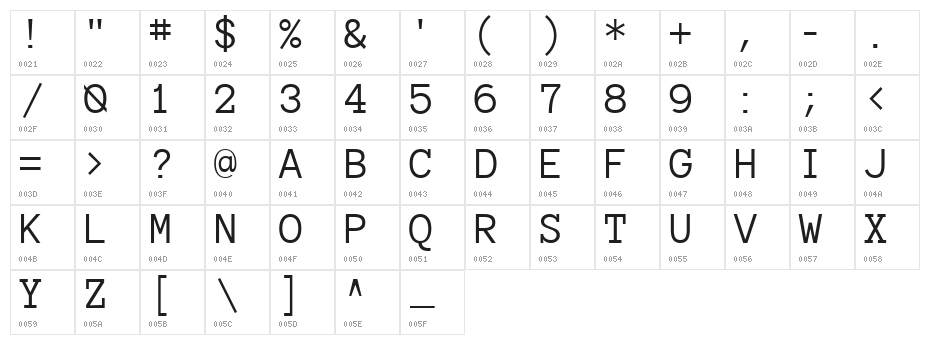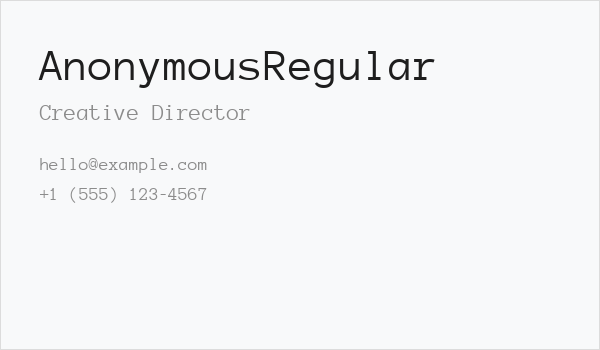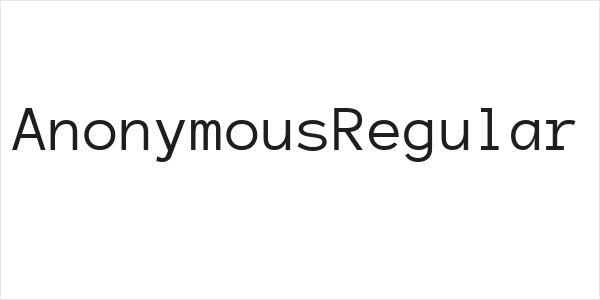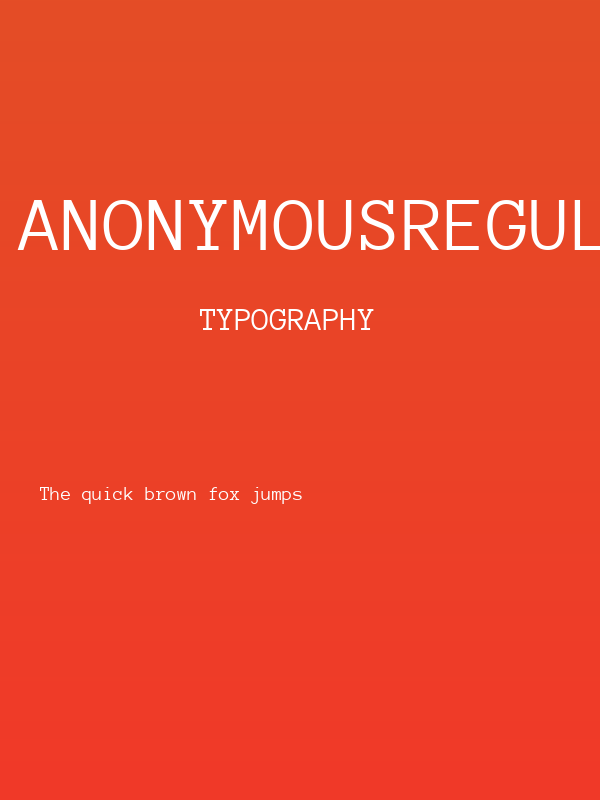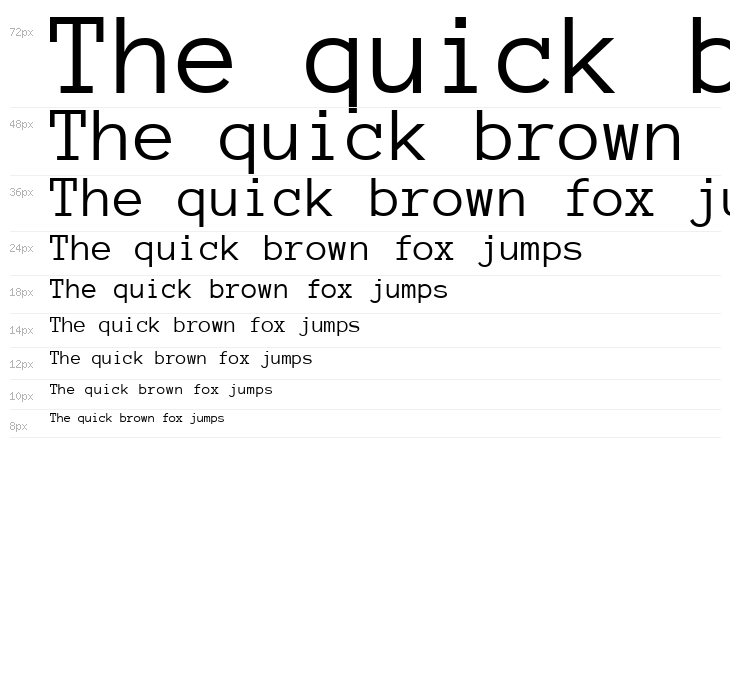
AnonymousRegular Font
| カテゴリ | Typewriter |
| 用途 | Coding, Technical documents, Data tables |
| おすすめプロジェクト | Ideal for coding, technical documents, data tables, and any project requiring a precise and professional appearance. |